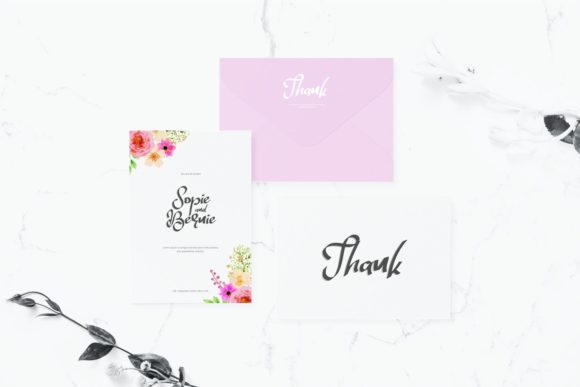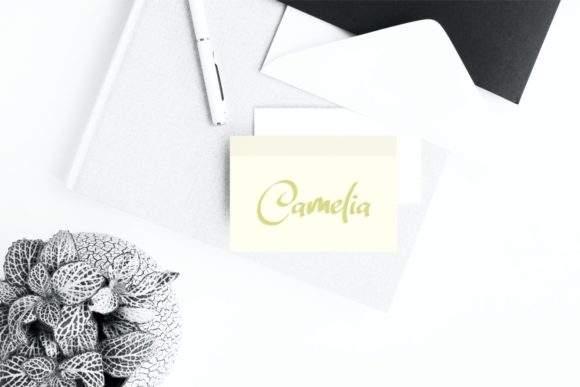
HomeScript FontsZildjan Font Script Fonts Zildjan Font FacebookXPinterestWhatsApp Zildjan Font Poster 2 Zildjan Font Poster 3 Zildjan Font Poster 4 Zildjan Font Poster 5 About Zildjan Font Zildjan is an exciting script font with interesting characters. Fall in love with its playful look & feel! DOWNLOAD ON CREATIVE FABRICAThis font is sold and delivered by Creative Fabrica. Font Canyon may earn a commission if you buy through this link. People also explored Vector Hanger Tshirt Mockup Template Valentine Time Font Halloween Party Font Bee Darling Font Dress Lines Duo Butter Luchy Font The Cheezy Letter Font Rolan Font Hadana Font 304 0 TagsZildjan Font Previous articleDare Daling FontNext articleKronos Font LEAVE A REPLY Cancel reply Comment: Please enter your comment! Name:* Please enter your name here Email:* You have entered an incorrect email address! Please enter your email address here Website: Save my name, email, and website in this browser for the next time I comment. Personal Use Free Abingdon Personal Use Free Read more about this font Hubbies Personal Use Free Read more about this font Burnstown Dam Personal Use Free Read more about this font Karmatic Arcade Personal Use Free Read more about this font BLOG Best Fonts for YouTube Videos: Make Your Thumbnails Stand Out Best Fonts for YouTube Videos: Make Your Thumbnails Stand Out Choosing the right font can make a massive difference in how your YouTube videos perform.... Top 10 Handwritten Fonts That Elevate Your Designs Elegant Wedding Invitation Fonts – Handwritten & Script Fonts Where to Buy American Fonts Online in 2024